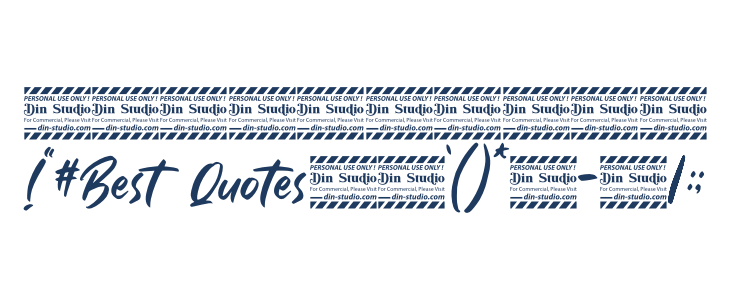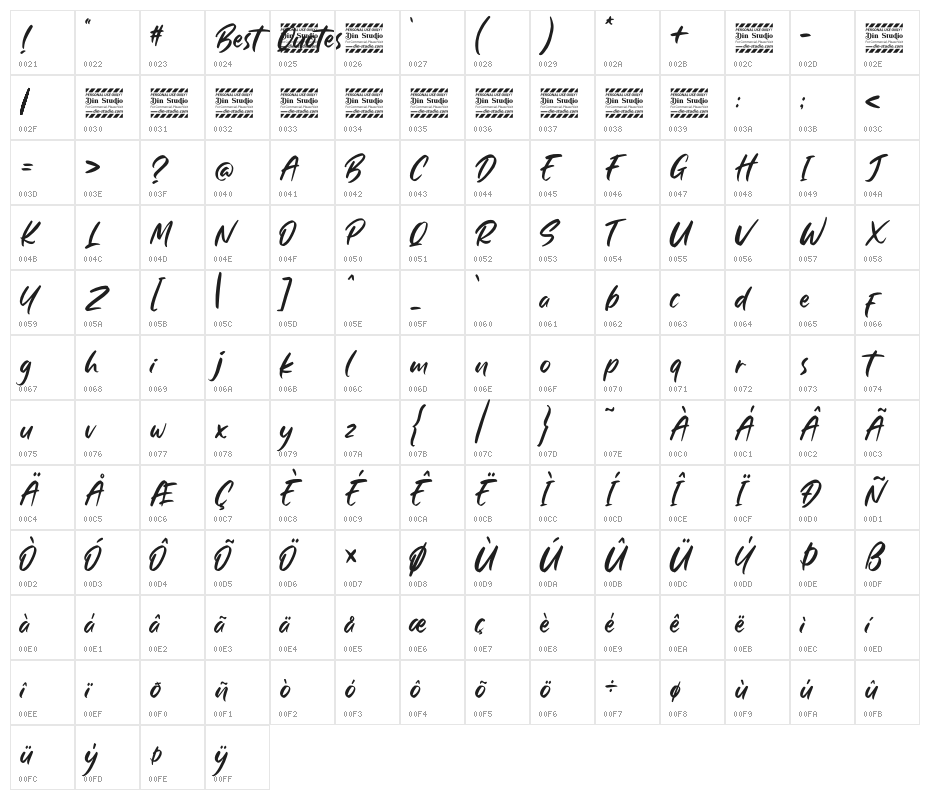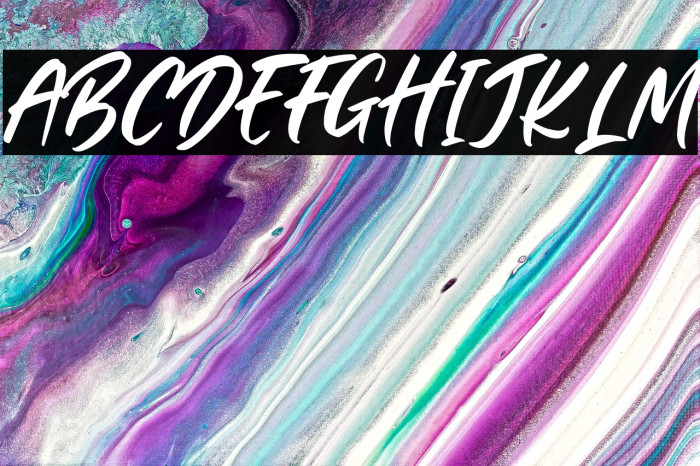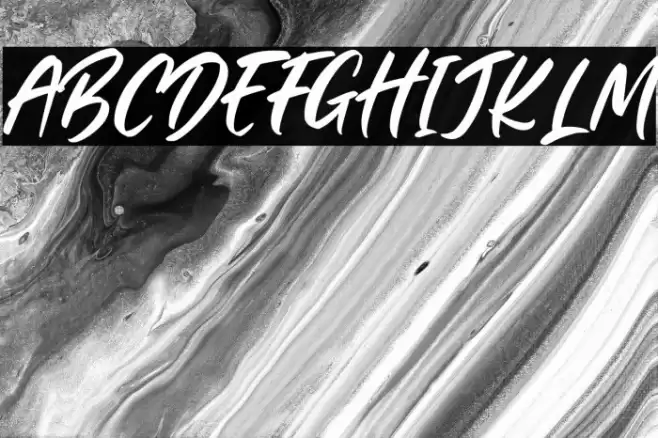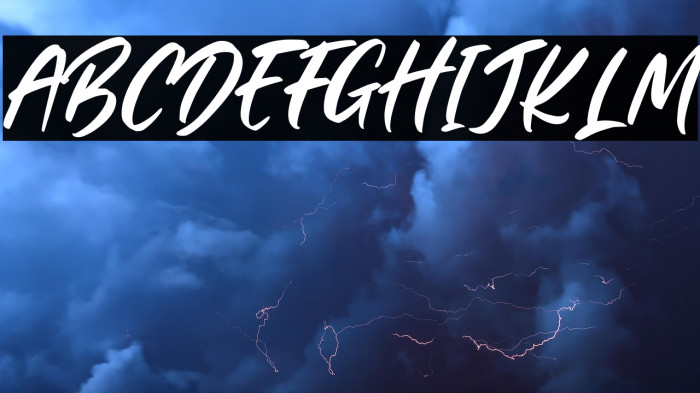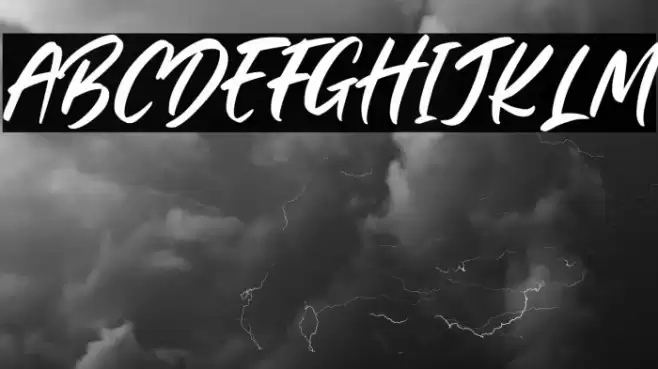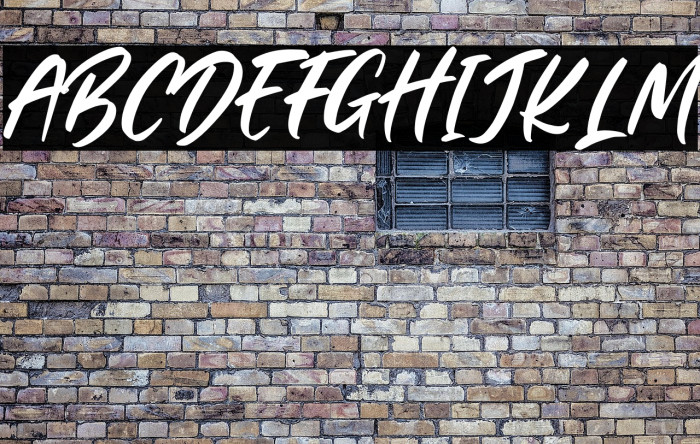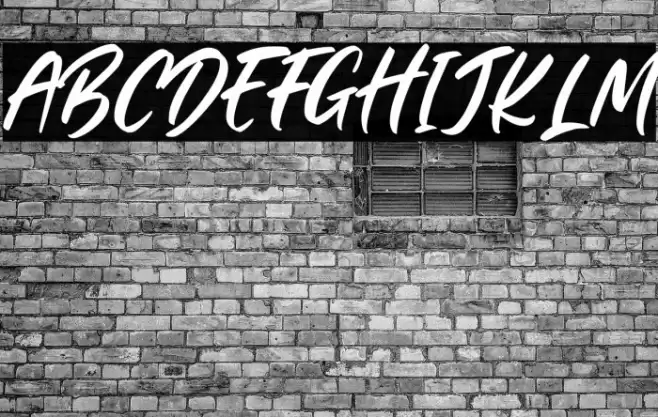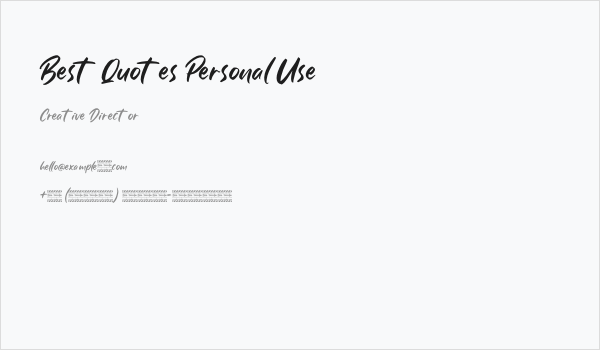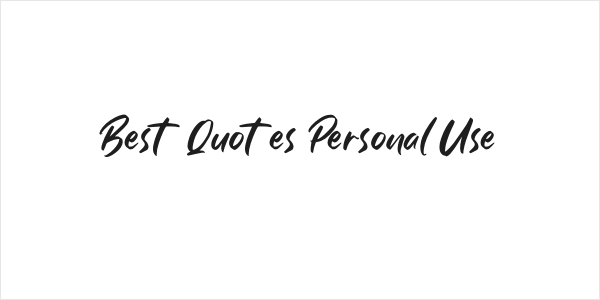
Best Quotes Personal Use Font
Best Quotes Personal Use Description
This font features a bold and expressive handwritten style, characterized by its fluid and dynamic strokes. The uppercase letters are particularly striking, with a sense of movement and energy that makes them stand out. The lowercase letters maintain this fluidity, offering a cohesive look across the alphabet. The font includes a variety of special characters, enhancing its versatility for creative projects. Its brush-like appearance gives it a personal and artistic touch, making it suitable for designs that require a human element or a casual, yet impactful, aesthetic.
Use CaseHeadlines, Logos, Social Media Graphics
Proposed ProjectsIdeal for quotes, social media graphics, branding, and creative projects that require a personal touch.